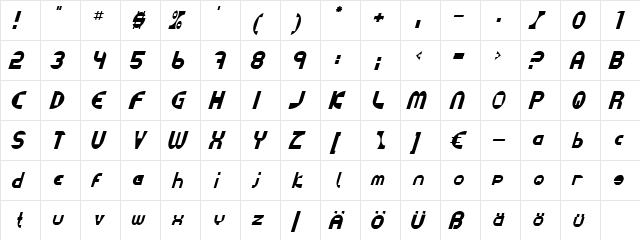
Datacut Italic
Design Context for Datacut Typeface
Datacut takes a measured approach to typography — its balanced proportions and neutral character make it a reliable workhorse for both digital and print work. The slanted form adds forward momentum and visual energy.